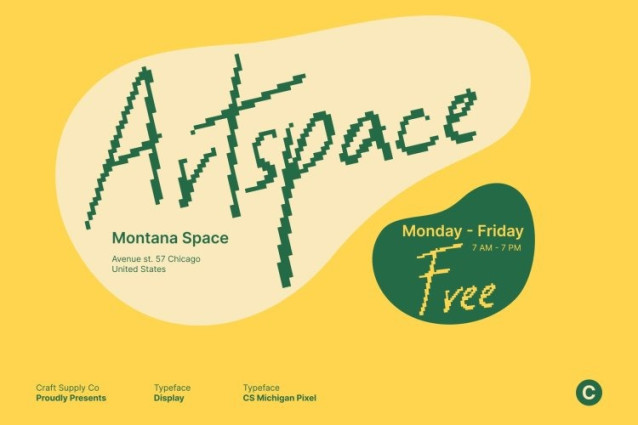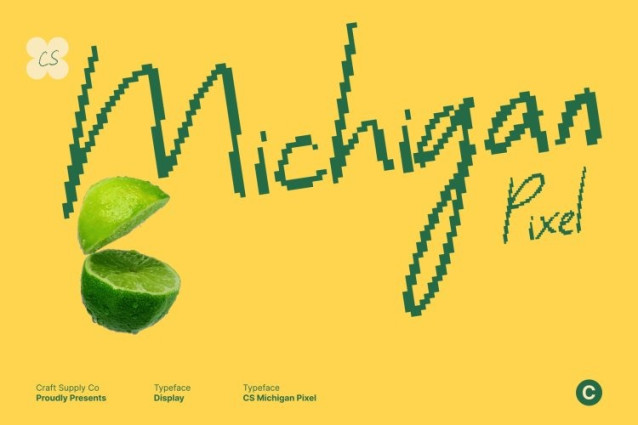
CS Michigan Pixel Font
CS Michigan Pixel Font This is a friendly handwritten display font that blends natural, flowing strokes with subtle pixel-inspired details. Its casual construction brings warmth and authenticity, while the digital touch adds a fresh, contemporary feel. Every word feels personal, lively, and easy to connect with.
Natural Writing with Organic Pixel Appeal
The organic, hand-crafted letterforms give this font its distinctive charm. Gentle pixel structure enhances the handwritten flow, creating a balanced mix of creativity and clarity. This casual style communicates friendliness and approachability while adding visual interest through digital texture.
Versatile, Relaxed, and Inviting Design
Designed to balance readability with expressive flair, this font adapts beautifully across a wide range of uses. Its relaxed shapes and smooth rhythm make it flexible for layouts while retaining a unique handcrafted and digital personality.
Perfect for Branding, Posters, and Casual Editorial Projects
Ideal for branding, posters, lifestyle content, and fun editorial designs, this font adds a cheerful and personal tone to any project. Its casual handwritten style combined with pixel accents ensures designs feel warm, inviting, and full of character.